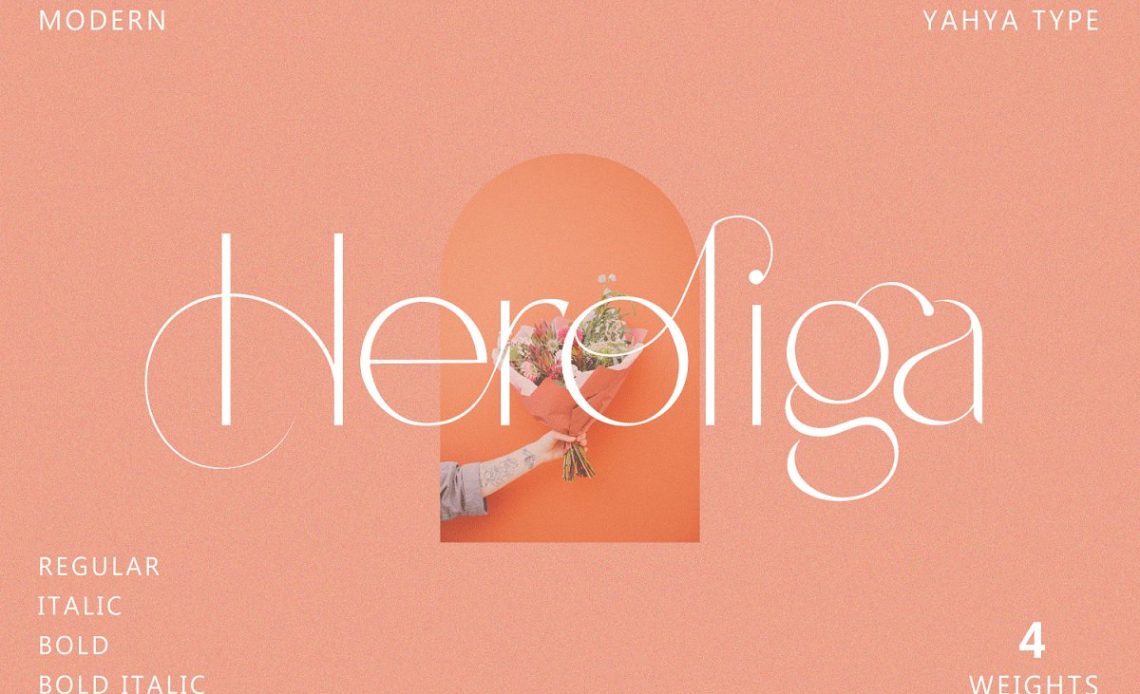
Introducing Heroliga, the modern serif font that adds a touch of elegance to any design. Created by the talented designer, Yahya Qara, this font is perfect for those looking for a font for cursive writing.
Not only is Heroliga a beautiful font, it also offers a range of features that make it a great investment for any designer. With regular, italic, bold and bold italic font styles, uppercase and lowercase letters, numbers, punctuation, ligature and huge stylistic alternate, this font is truly versatile.
Heroliga is ideal for a range of design projects, from logo design and magazine headers, to product packaging and branding projects. It can also be used as a stylish text overlay to any images or websites. And with multilingual support, this font can be used in designs for various languages.
But Heroliga isn't just any font. It's a font that makes a statement. With special alternative letters, this font adds an element of sophistication to any design. It's perfect for those who want to create designs that are both modern and classic at the same time.
In summary, if you're looking for a font that is not only beautiful but also versatile and full of features, Heroliga is the perfect choice. Add a touch of elegance to your designs with this modern serif font today.